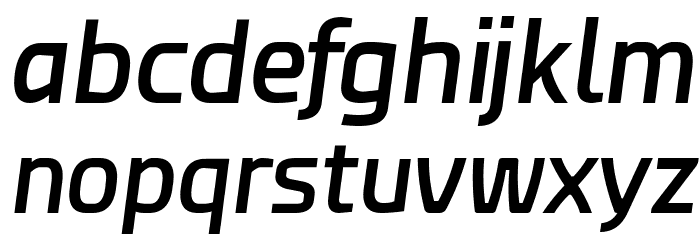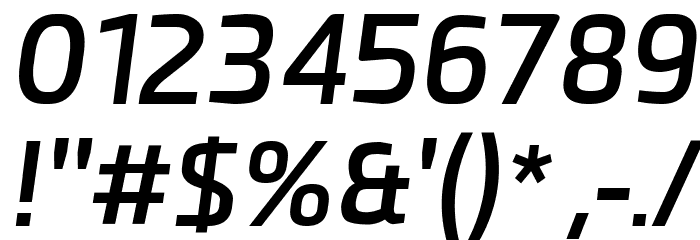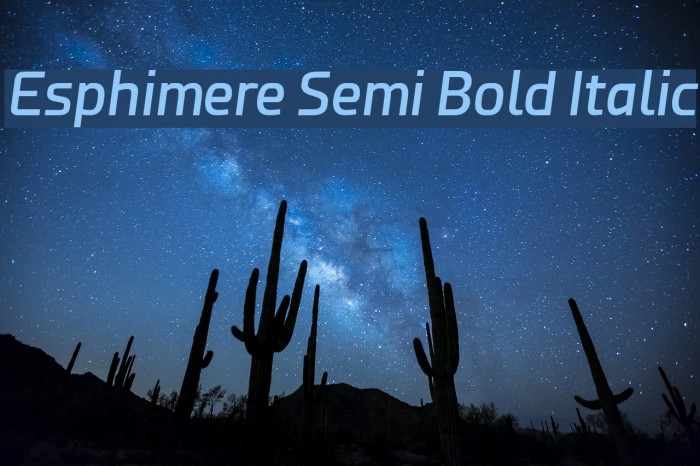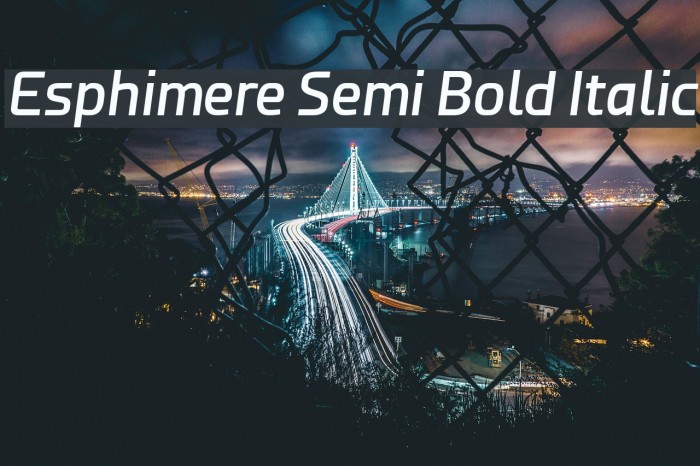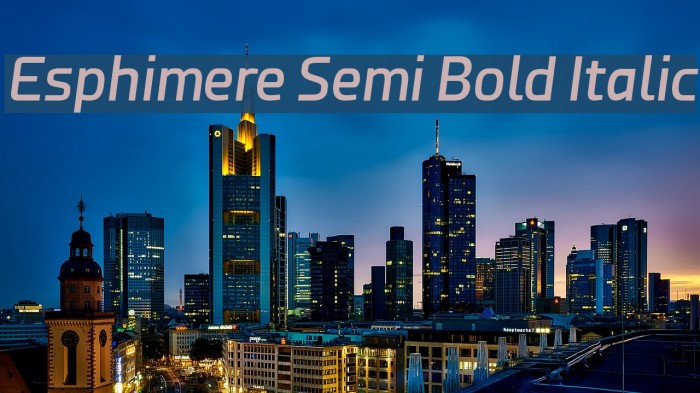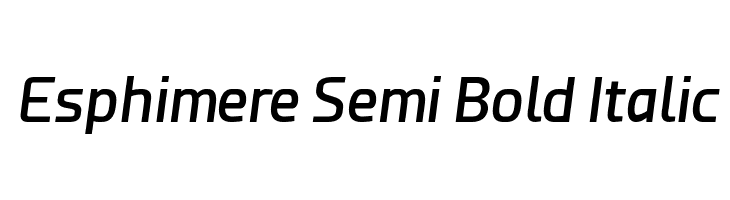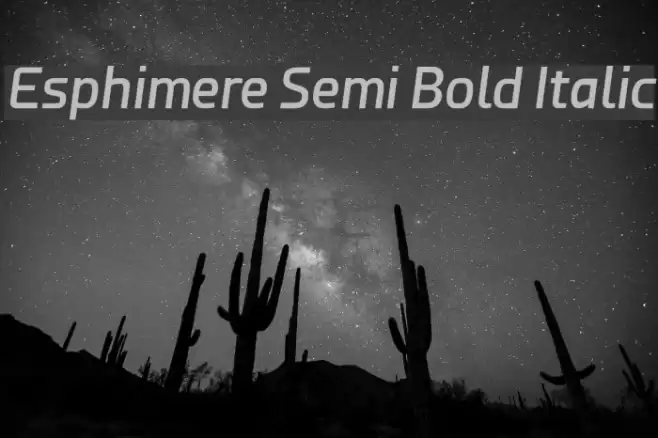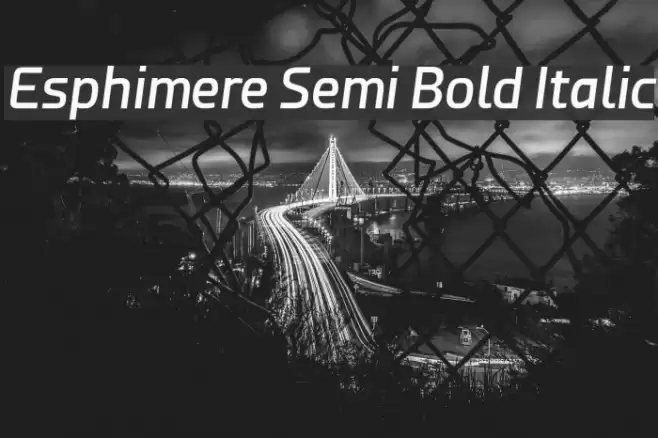
Esphimere Semi Bold Italic Font
This typeface features a sleek, modern design with a semi-bold weight and italic style, giving it a dynamic and forward-leaning appearance. The characters are clean and sans-serif, providing a contemporary and professional look. The strokes are consistent, with a medium contrast that adds subtle depth without overwhelming the design. The font maintains a balanced structure, ensuring readability across various sizes. The character spacing is normal, allowing for clear legibility while maintaining a cohesive visual flow. This typeface is versatile, suitable for both digital and print media, and can effectively convey a sense of modernity and sophistication.
A sleek, semi-bold italic sans-serif font with a modern and dynamic style.
- Proposed Projects: Ideal for branding, advertising, digital interfaces, and editorial design.